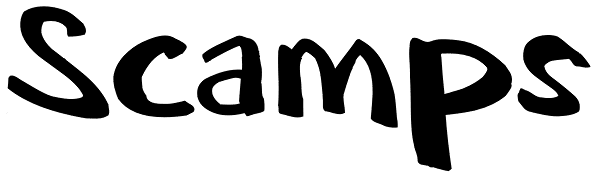
Scamps
I designed this font because it didn't exist - it’s based on hand rendered type created for black and white line marker scamps used in the advertising industry. I use it that way and it’s saved me a LOT of hand-rendering time over the years. Of...